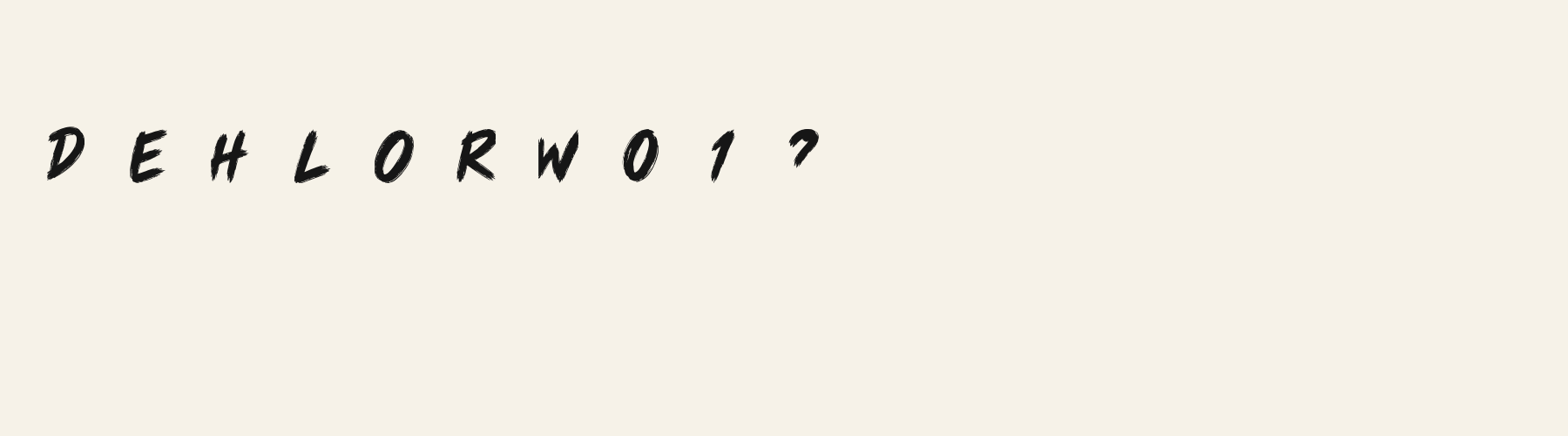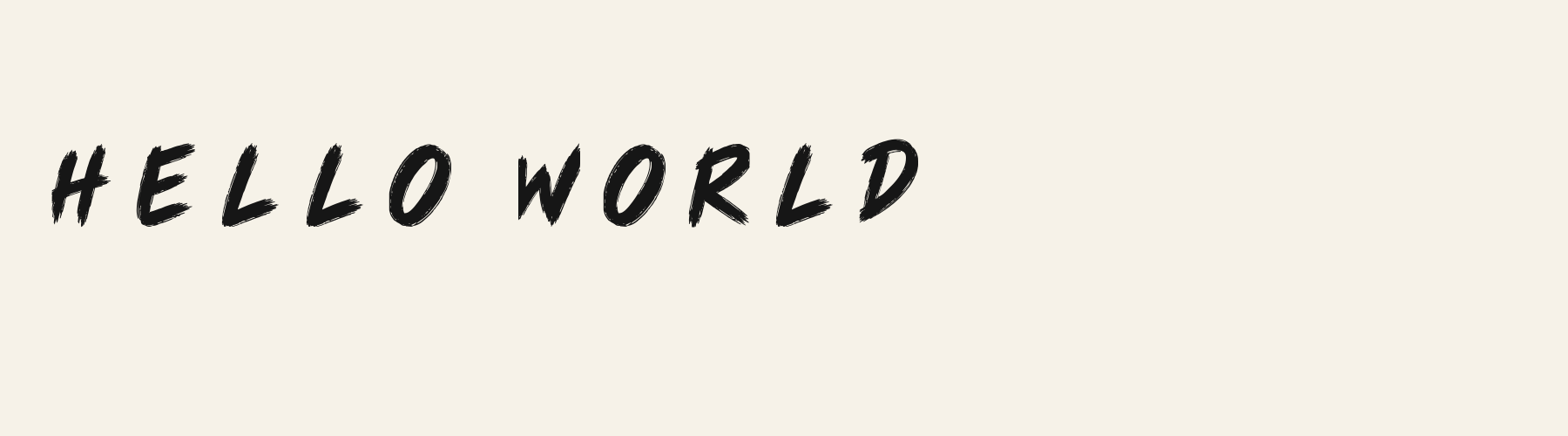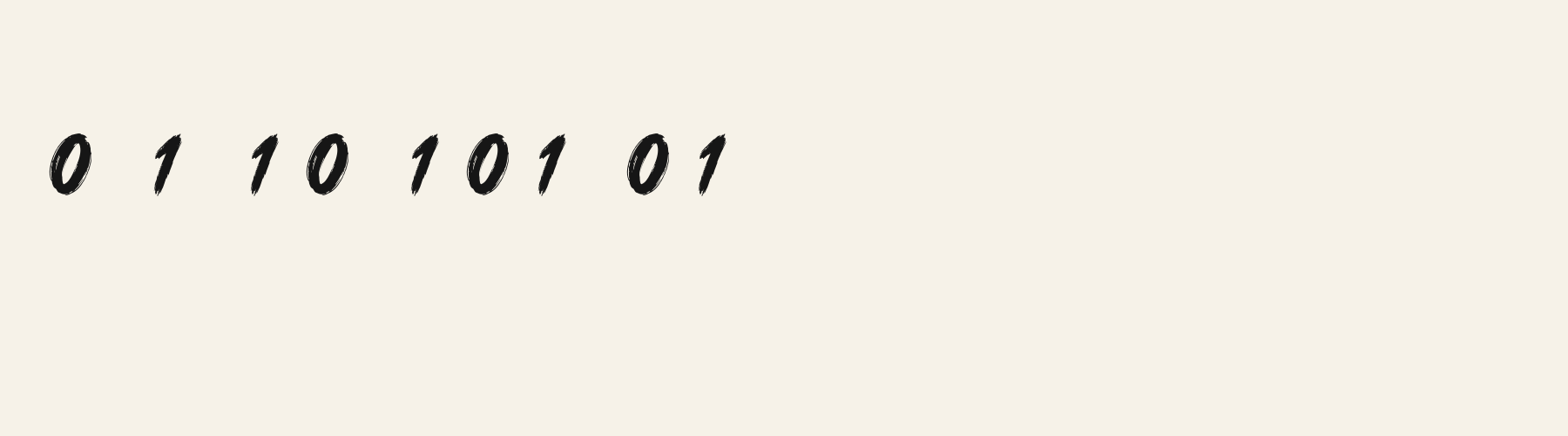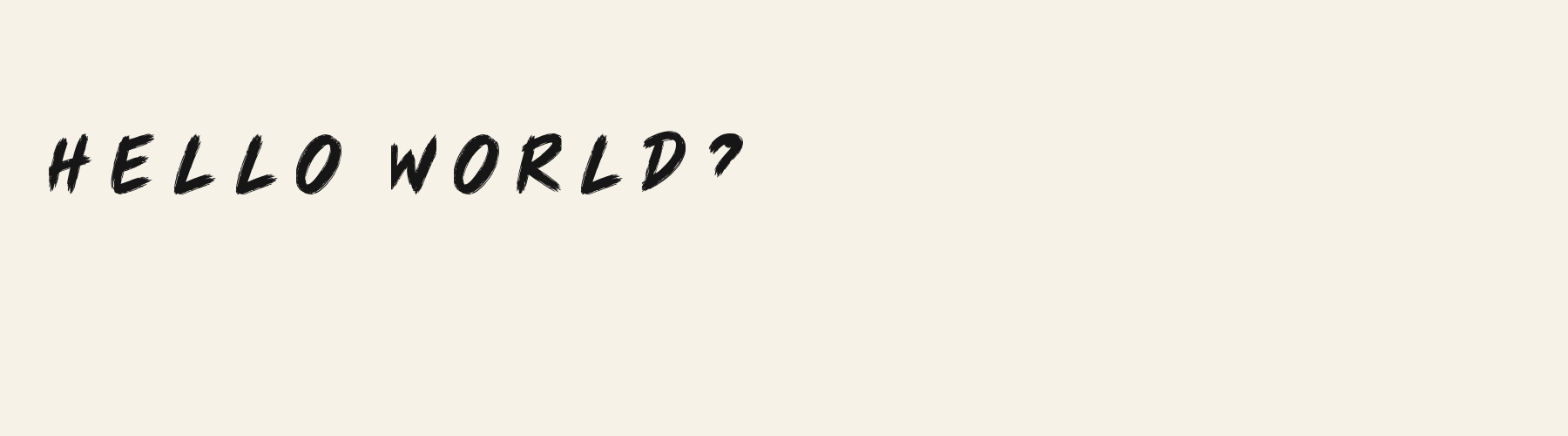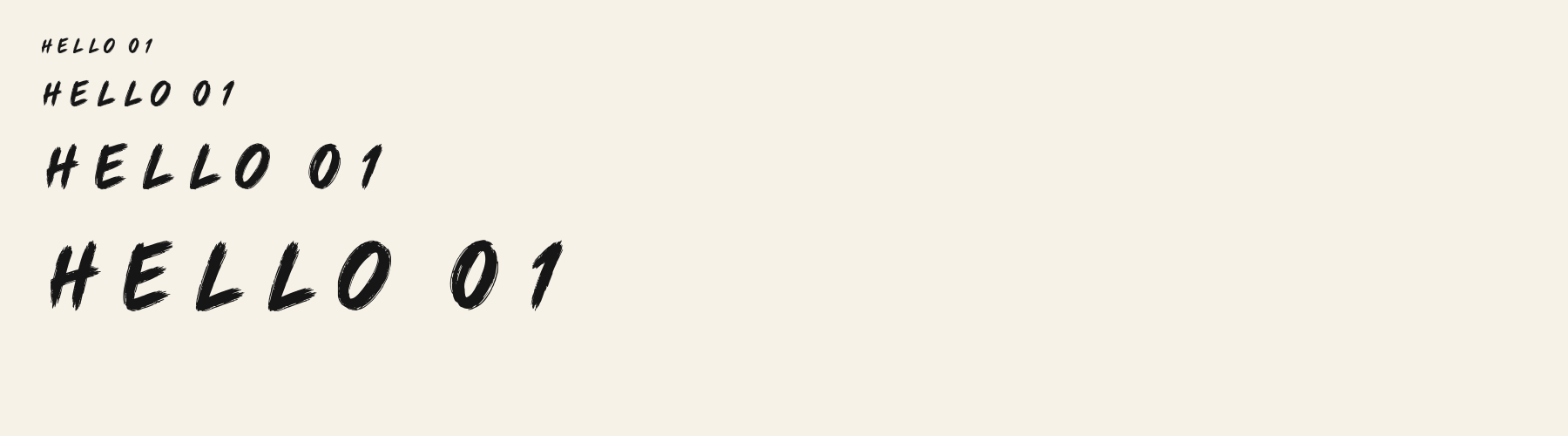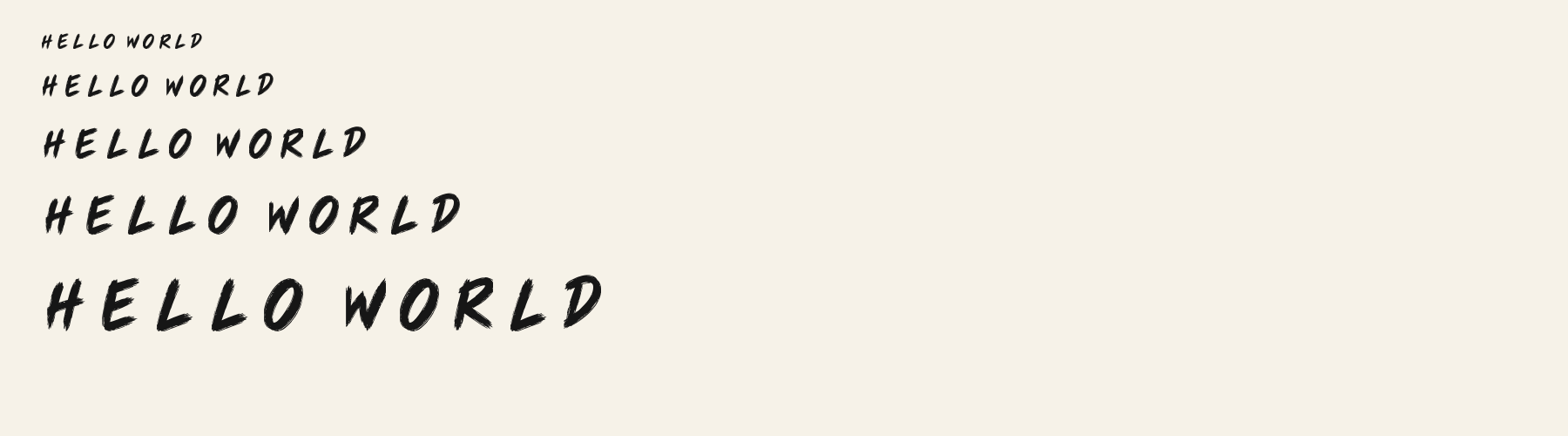
Brush Note Casual Frayed Ink Slant Font
Brush Note Casual has broad, right-leaning capitals with ragged edges and pale streaks running through the black strokes.
Frayed Ink Slant Letterforms
Brush Note Casual has broad, right-leaning capitals with ragged edges and pale streaks running through the black strokes. The R combines a compact upper bowl with a long diagonal leg that sweeps outward. The W has uneven pointed strokes, giving its middle a jagged rhythm, while the O forms a tilted oval with a clearly enclosed counter. L finishes with a broad foot that rises toward its tip. These separate, emphatic gestures make short words feel brisk and assertive, with enough roughness to suggest an informal message rather than a polished inscription.
Preview your actual Latin wording, checking the R's spreading leg, the W's pointed strokes and the counters in O and D. Compare tighter and wider spacing around these shapes. Evaluate other scripts separately with representative text in your intended application.
Try this face for a brief heading, with a regular upright sans serif for supporting text and labels. Its broad, frayed strokes suggest a useful contrast with smooth, even lines; test the combination for hierarchy and scanning in your actual layout.
Brush Note Casual: letterforms and layout
Compare smaller and larger previews to see how the pale streaks and pointed exits hold together. Watch the open spaces inside O and D, along with the gaps around the spreading W.
Broad strokes, frayed edges and a consistent rightward lean give the words a forceful sweep. Choose this treatment when the lettering's texture should be prominent in a short heading.
Poster. Broad black strokes and pointed exits give a short poster message a strong, restless visual rhythm. WEEKEND PLANS
Social post. The rightward lean and frayed contours bring an informal, energetic accent to a brief social graphic. SMALL BATCH
Product label. Rough stroke edges give a short product label visible texture, especially when surrounding details use quieter lettering.
The scenes are illustrations drawn on this page with Brush Note Casual itself, not client work.
Brush Note Casual's lowercase x reaches 72.4% of the capital height, close to the 73.2% median for handwriting fonts, lower than 17 of the 29 other handwriting fonts. Ascenders on b, d, h, k and l rise 20.5% above the capitals, and descenders on g, j, p, q and y drop 10.2% of the cap height below the baseline, the shallowest of all 30 handwriting fonts. Brush Note Casual runs 9.1% wider than the median for handwriting fonts: an average lowercase letter, spacing included, is 79% as wide as the capitals are tall (an average capital, 78.4%). The o is close to a circle, 0.93 times as wide as it is tall, and T is the widest capital, at 1.02 times the width of H. The O stops 6.4% of the cap height short of H and stands 4.9% above the baseline.
Ink covers 37.7% of each lowercase letter's box (its advance width by the cap height), darker than 20 of the 29 other handwriting fonts.
Its 95 characters include 52 Latin letters, plus 43 figures, punctuation marks and symbols; there are no accented Latin letters beyond A to Z. The word space measures 47.1% of the cap height, and the blank space either side of a lowercase letter takes up 11.8% of its width. The font carries no kerning, so spacing comes from each letter’s own side bearings. The figures have different widths, so columns of numbers set in Brush Note Casual will not line up exactly.
- Loose gestures, moderate slant and a lively but readable baseline
- Visible dry-brush modulation with rounded starts and tapered exits
- Annotations, social graphics, informal headings and labels